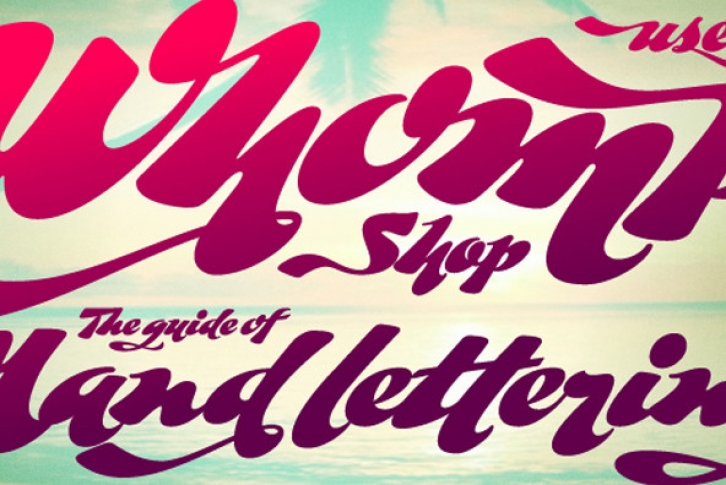
Whomp takes its inspiration from the work of an American master in sign
painting and alphabet manipulation: Alf Becker. In 1932, Becker began
designing a series of alphabets to be published in Signs of the Times
magazine at the rate of one alphabet per month. Nine years later, 100 of
those alphabets were compiled in one book that became an enormous success
among sign painters. In the late 1990s and early 2000s, many Alf Becker
alphabets were digitized with blurbs that falsely credit an "Alf Becker
typeface". Alf Becker was not really a typeface kind of guy. He was more of
a calligrapher and sign painter. His alphabets were either incomplete or
full of variations on different letters, and didn't become typefaces until
the digital era.
This particular Becker alphabet was quite incomplete. In fact, it wasn't a
showing of an alphabet, but words on a poster. Alejandro Paul took the
challenge of drawing, digitizing, restructuring, and finally building a
complete usable typeface from that partial alphabet. He then extended his
pleasure by once again playing with the wonderful possibilities of OpenType.
Whomp comes with more than 100 alternates, tons of swashy endings and
ligatures, all built into the font and accessible through OpenType palettes
in programs that support such features.
This is the in-your-face kind of font that stands among other Becker-based
alphabets as paying most homage to the vision of this great American artist
who saw letters a live ever-changing beings.
Whomp is right at home when used on packaging, signage, posters, and
entertainment related products.